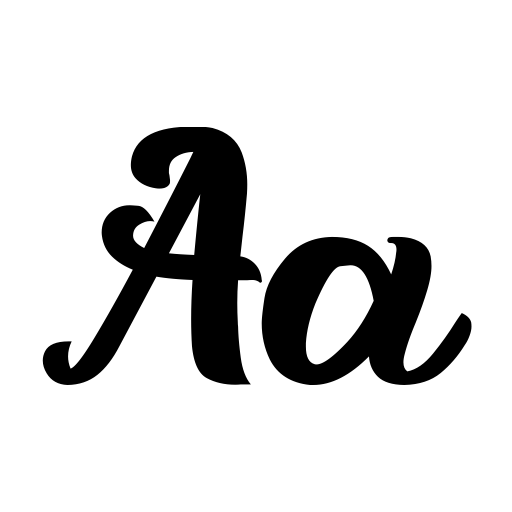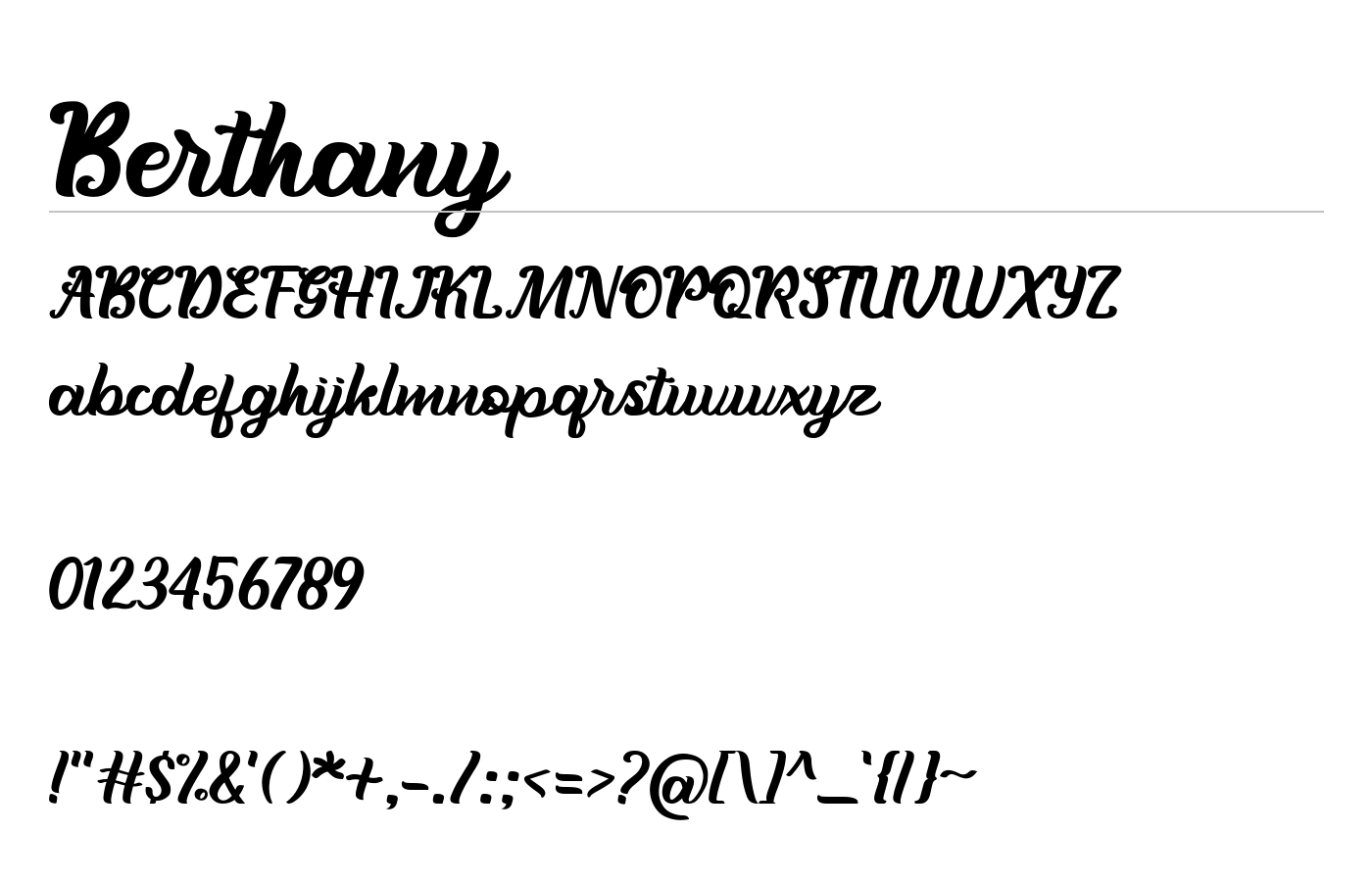
Berthany is a bold, script-style font with smooth, flowing strokes that create a warm and friendly feel. Its rounded, connected letterforms and lively curves make it perfect for playful and casual branding, invitations, or creative headlines where a personal touch is desired. This font works well in designs that need an approachable yet stylish look, adding charm and personality with its elegant yet relaxed vibe.
Berthany Font
About Berthany Font
| Font family | Berthany Font |
| Designer | Galih Aprilia |